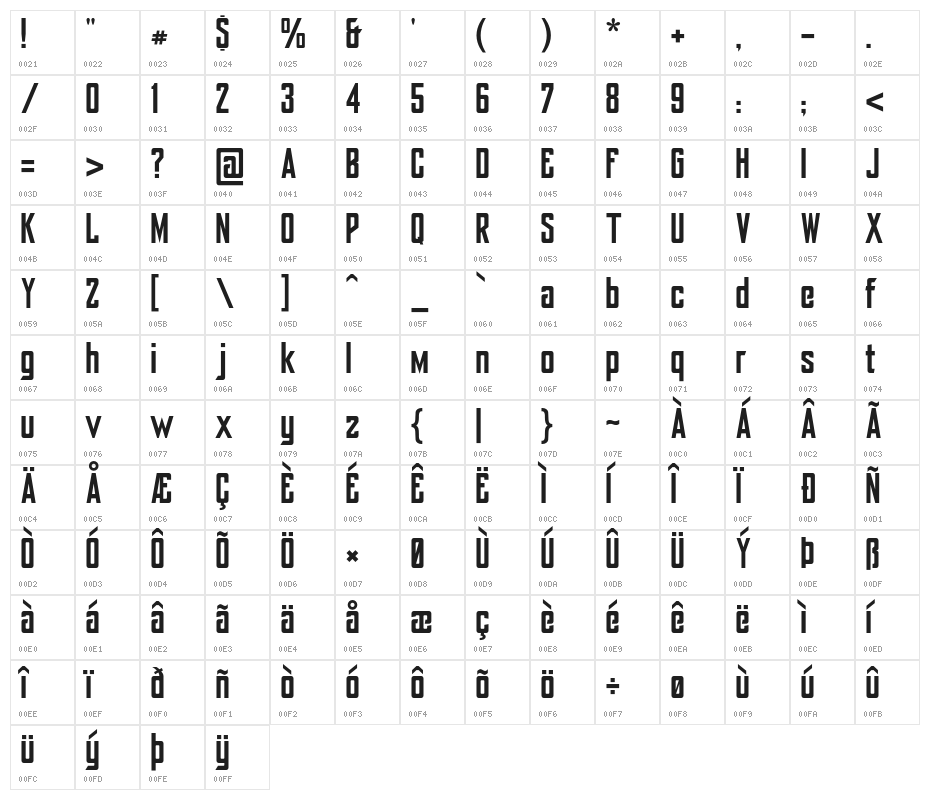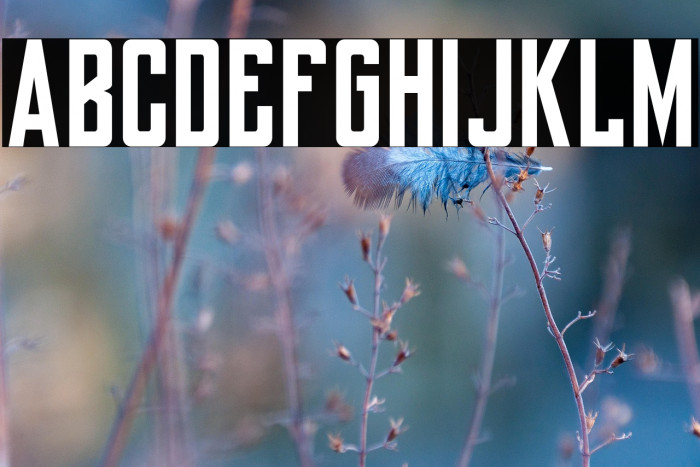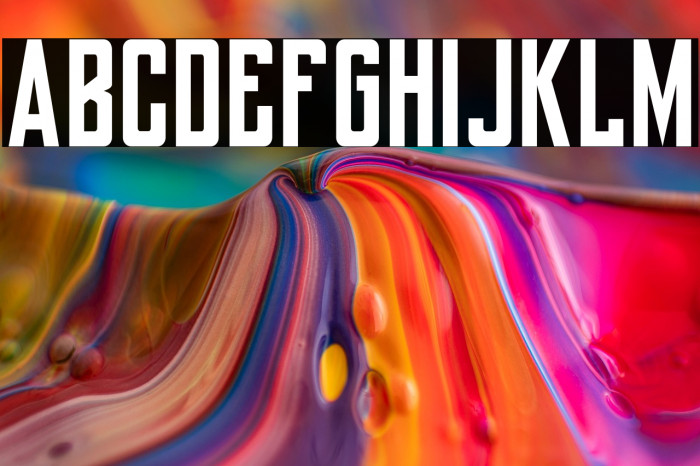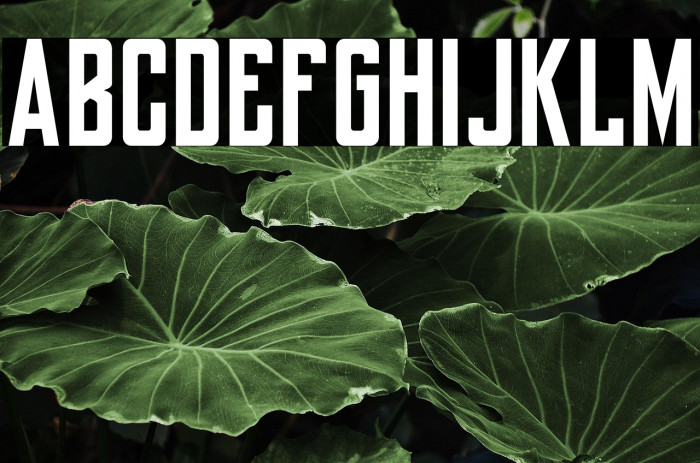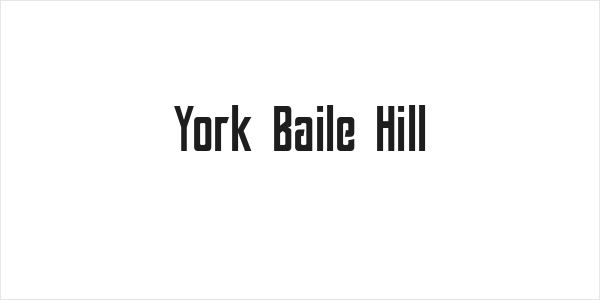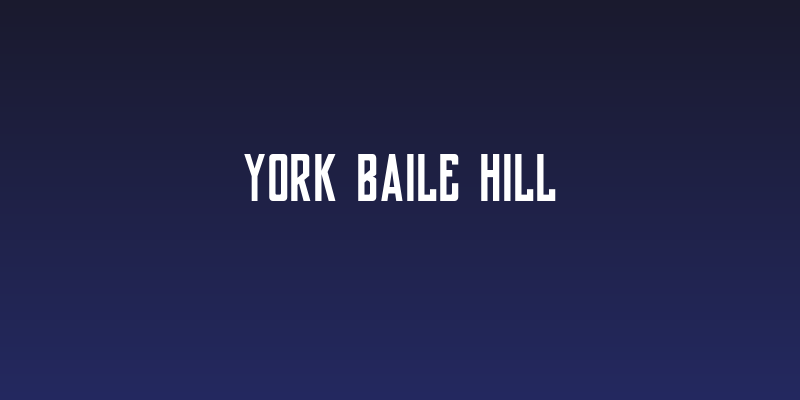
York Baile Hill Font
York Baile Hill Description
This font features a bold and impactful design with strong geometric shapes and a modern aesthetic. The uppercase letters are tall and narrow, giving a sense of height and authority, while the lowercase letters maintain a consistent style with slightly rounded edges that soften the overall appearance. The numerals are clear and easy to read, matching the boldness of the alphabetic characters. Special characters are designed with the same attention to detail, ensuring uniformity across all glyphs. The font's strong lines and clean edges make it suitable for a variety of design applications.